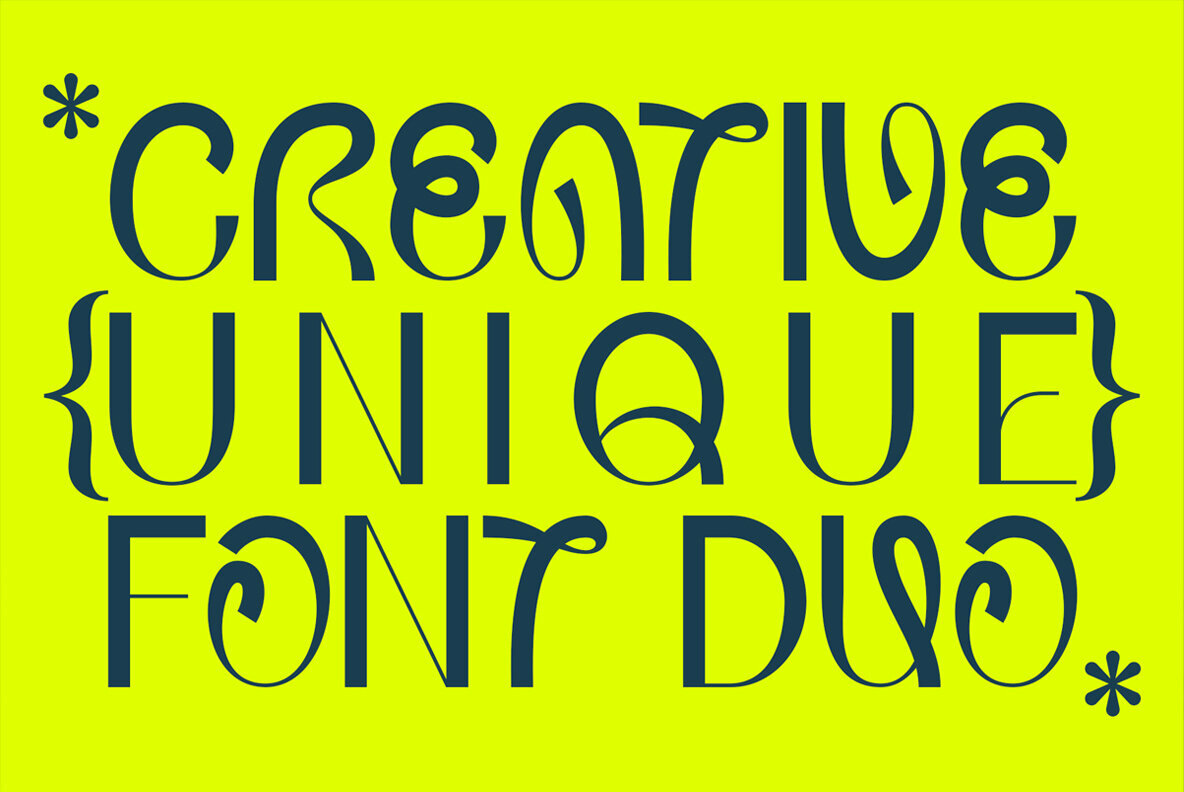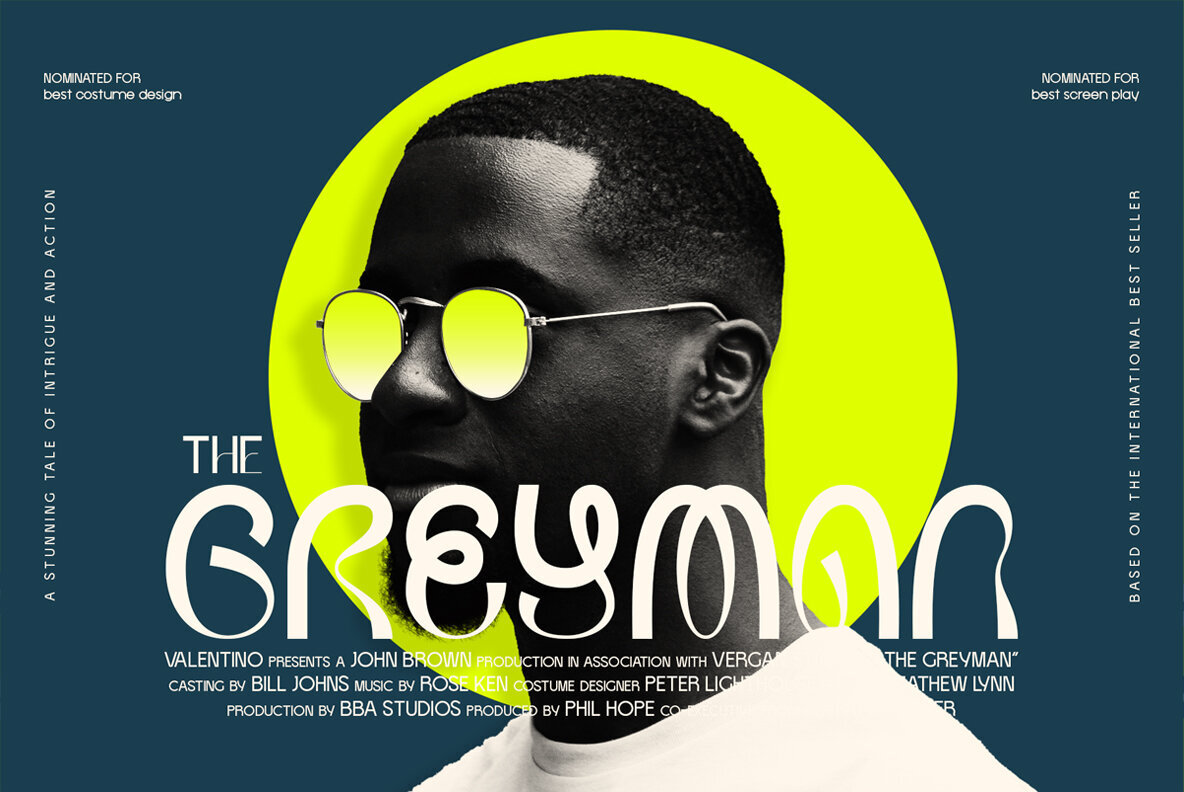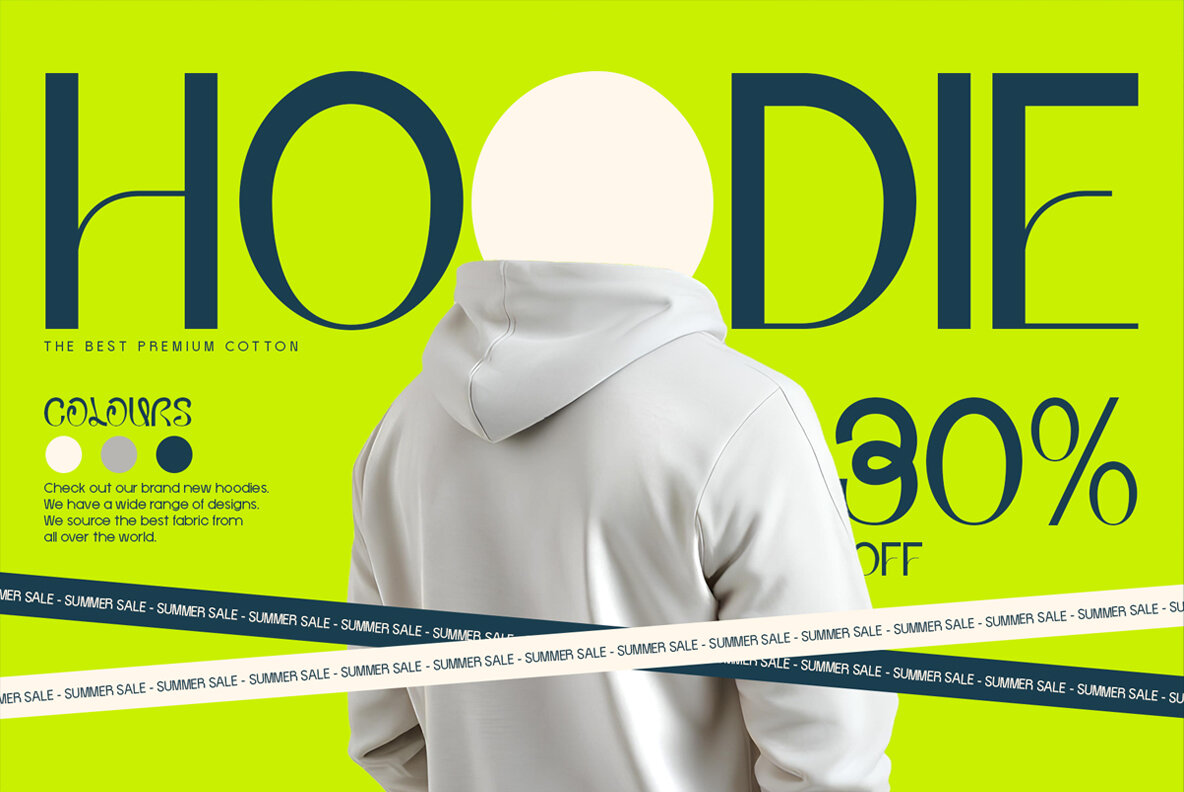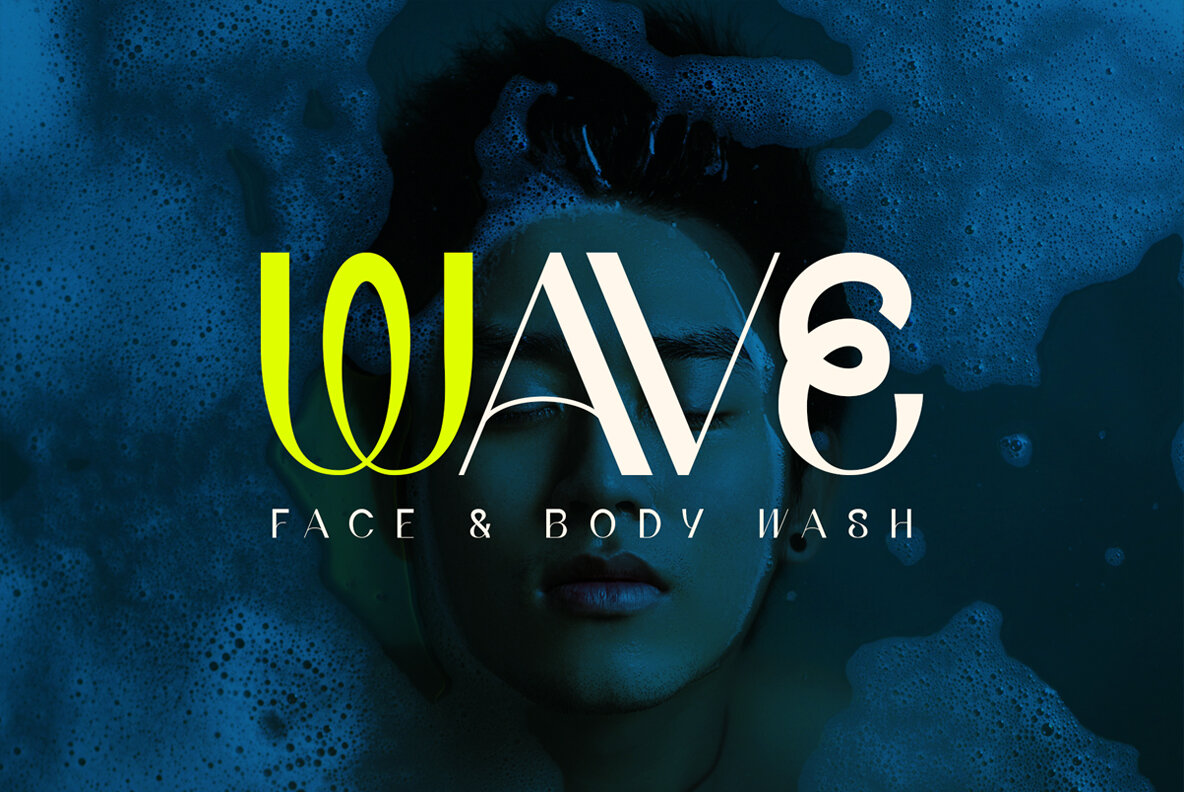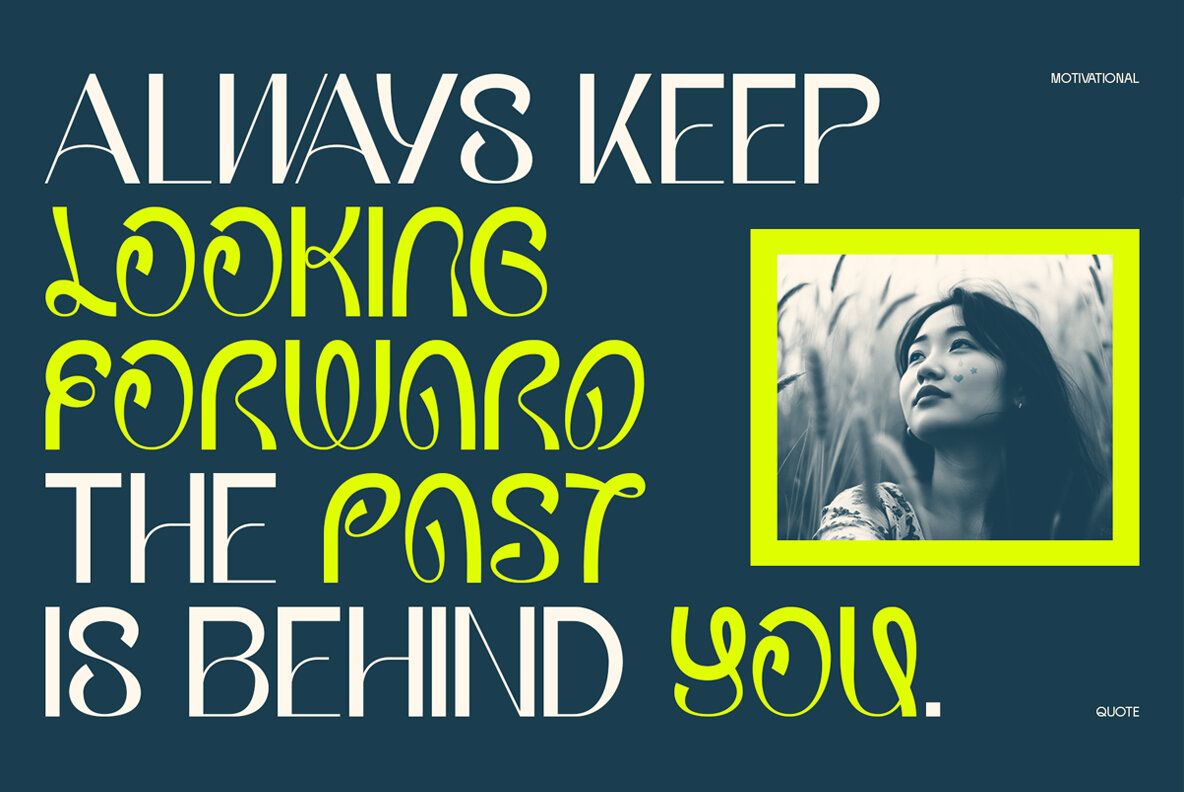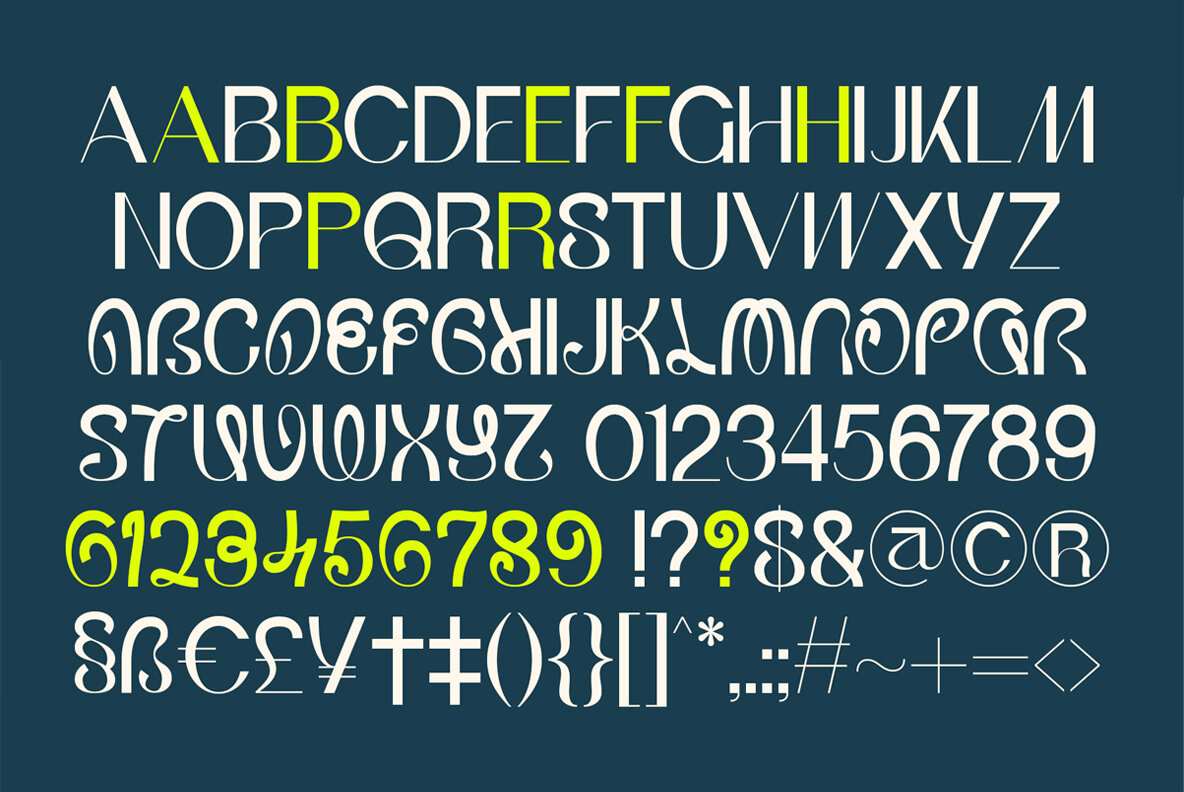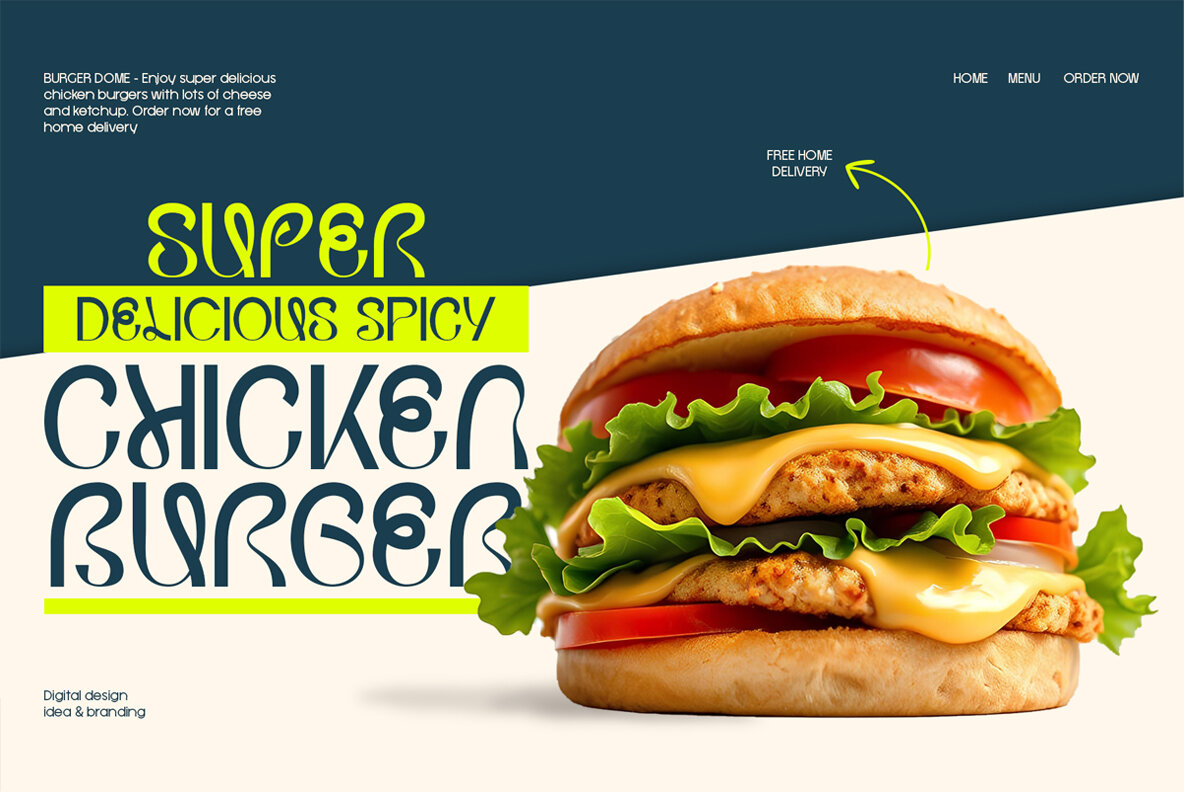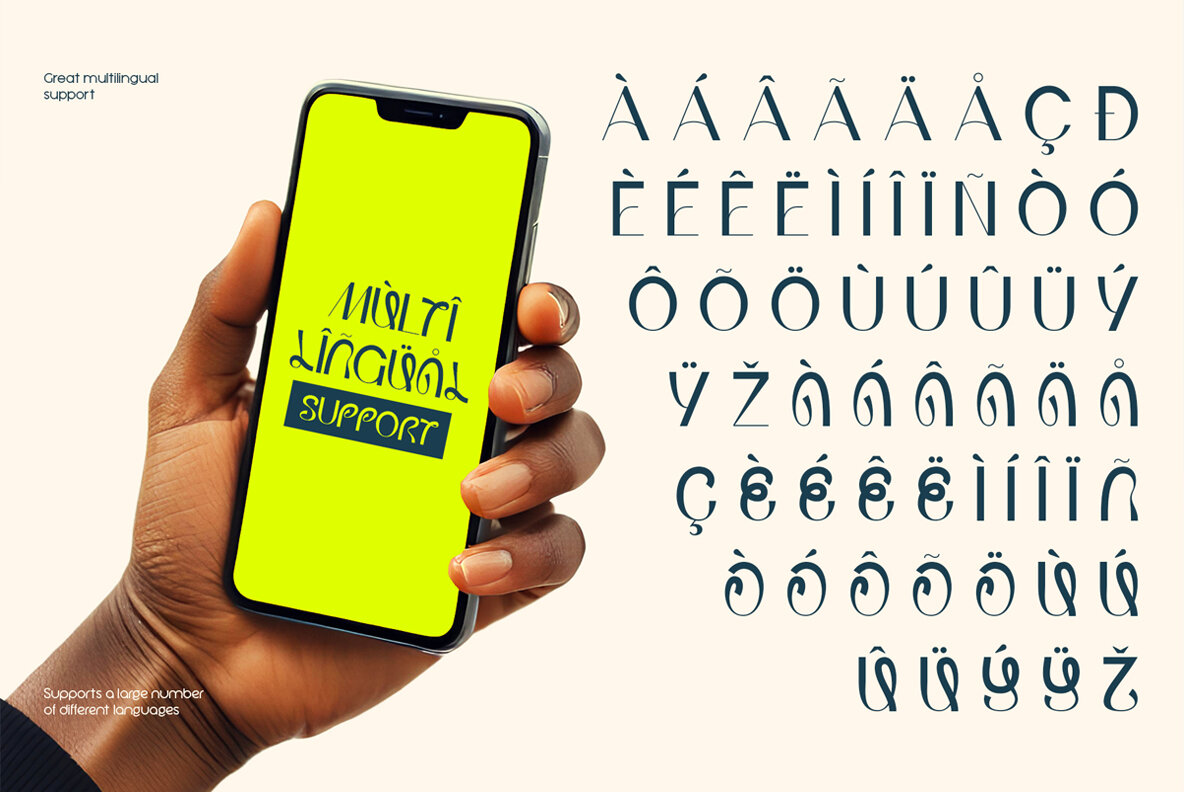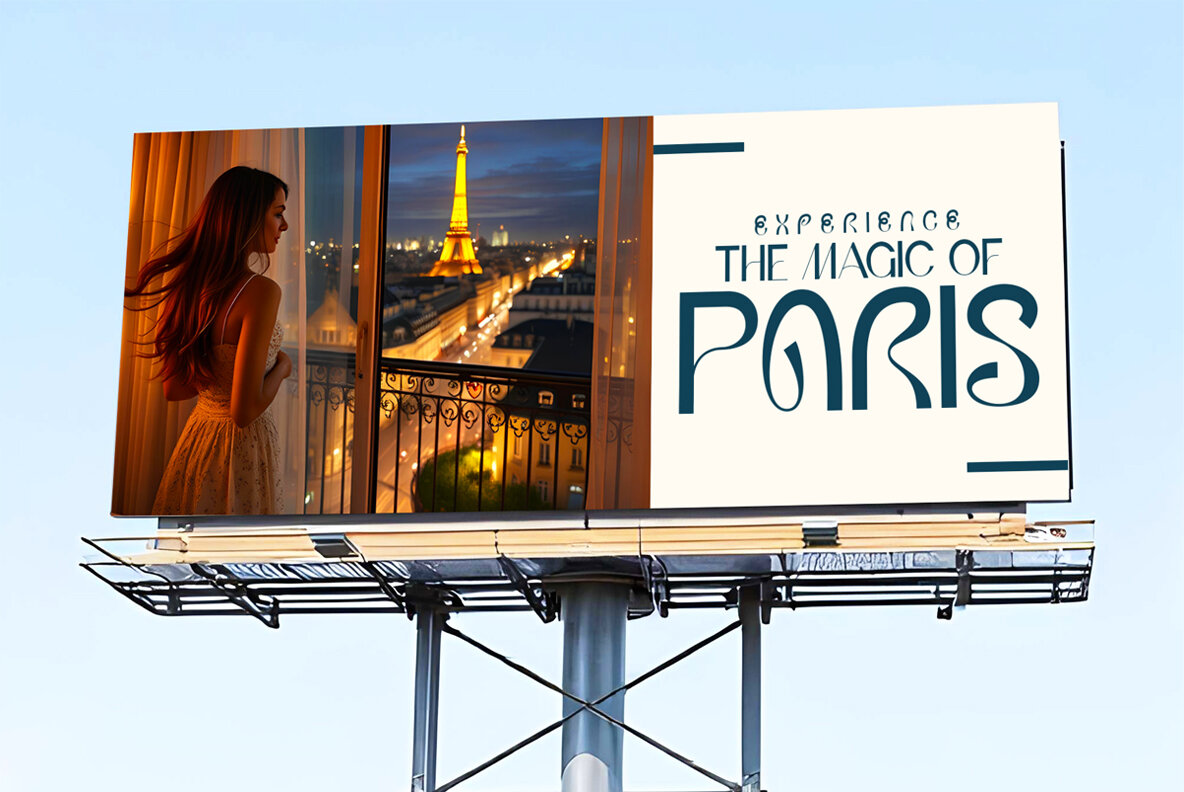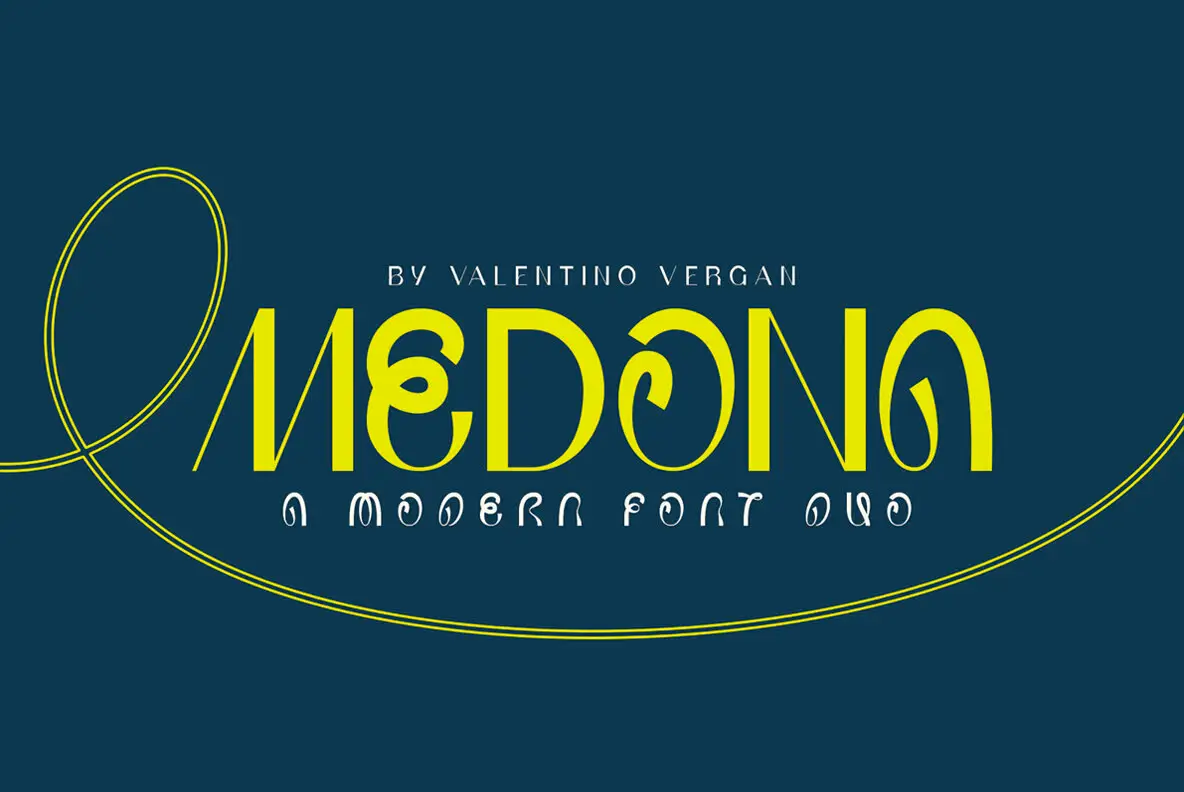
Medona Font
Medona Regular
Medona is a modern and unique font duo that elegantly pairs an uppercase style with a creative lowercase counterpart. This combination allows for a wide range of letter variations, making your designs both distinctive and engaging. Medona is particularly suited for projects such as posters, brand packaging, and logos, providing a sophisticated touch for creative professionals and design agencies.
With its versatility, Medona caters to designers seeking to inject originality and flair into their work. The harmonious blend of two distinct styles in a single font adds a layer of intrigue and creativity, perfect for modern projects requiring a unique typographic approach.